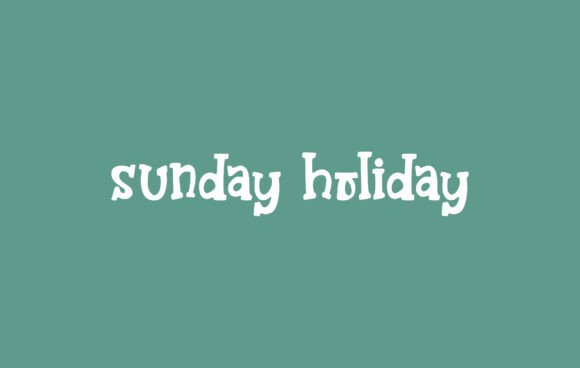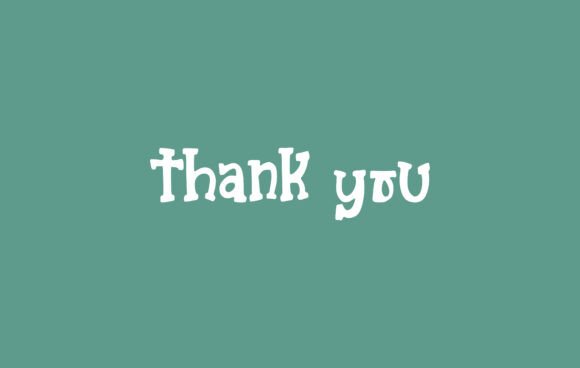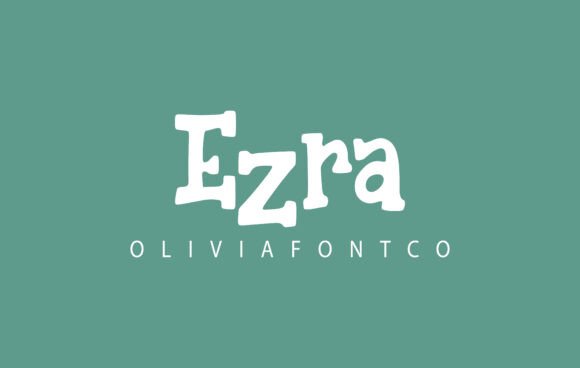
Introducing Ezra Font: The Ultimate Handwritten Font for Creative Expression
Are you tired of using the same old fonts for your creative projects? Look no further than Ezra Font, an authentic handwritten font with a romantic touch that’s sure to take your designs to the next level. Expertly crafted to be a true favorite among designers and crafters, Ezra Font is the perfect choice for anyone looking to add a personal touch to their work.
What Makes Ezra Font So Special?
Ezra Font is more than just a font – it’s an expression of creativity and individuality. With its unique, handwritten style, this font is sure to add a touch of elegance and sophistication to any design. Whether you’re working on a magazine headline, social media post, branding campaign, wedding invitation, or card, Ezra Font is the perfect choice.
Key Features of Ezra Font
- Legibility: Ezra Font is designed to be highly legible, making it perfect for use as both title and body text.
- Romantic Touch: With its flowing, handwritten style, Ezra Font adds a touch of romance and whimsy to any design.
- Versatility: Ezra Font is incredibly versatile, making it suitable for use in a wide range of designs, from magazine headlines to wedding invitations.
Why Choose Ezra Font?
So why choose Ezra Font over other fonts on the market? For starters, its unique, handwritten style sets it apart from more traditional fonts. Additionally, its legibility and versatility make it a practical choice for designers and crafters who need a font that can keep up with their creative demands.
Uses for Ezra Font
Ezra Font is incredibly versatile, making it suitable for use in a wide range of designs, including:
- Magazine Headlines: Add a touch of elegance and sophistication to your magazine headlines with Ezra Font.
- Social Media: Stand out on social media with Ezra Font, perfect for creating eye-catching posts and stories.
- Branding: Use Ezra Font to create a unique and memorable brand identity that sets you apart from the competition.
- Wedding Invitations: Add a touch of romance and whimsy to your wedding invitations with Ezra Font.
- Cards: Create beautiful, one-of-a-kind cards for any occasion with Ezra Font.
Tips for Using Ezra Font
To get the most out of Ezra Font, here are a few tips to keep in mind:
- Experiment with Different Sizes: Ezra Font looks great in a variety of sizes, so don’t be afraid to experiment to find the perfect size for your design.
- Play with Color: Ezra Font looks great in a range of colors, so try experimenting with different colors to add depth and interest to your design.
- Mix and Match: Don’t be afraid to mix and match Ezra Font with other fonts to create a unique and eye-catching design.
In conclusion, Ezra Font is an authentic handwritten font with a romantic touch that’s sure to take your creative ideas to the highest level. With its unique style, legibility, and versatility, Ezra Font is the perfect choice for designers and crafters looking to add a personal touch to their work. Whether you’re working on a magazine headline, social media post, branding campaign, wedding invitation, or card, Ezra Font is the perfect choice. So why wait? Download Ezra Font today and start creating beautiful, one-of-a-kind designs that showcase your creativity and individuality.